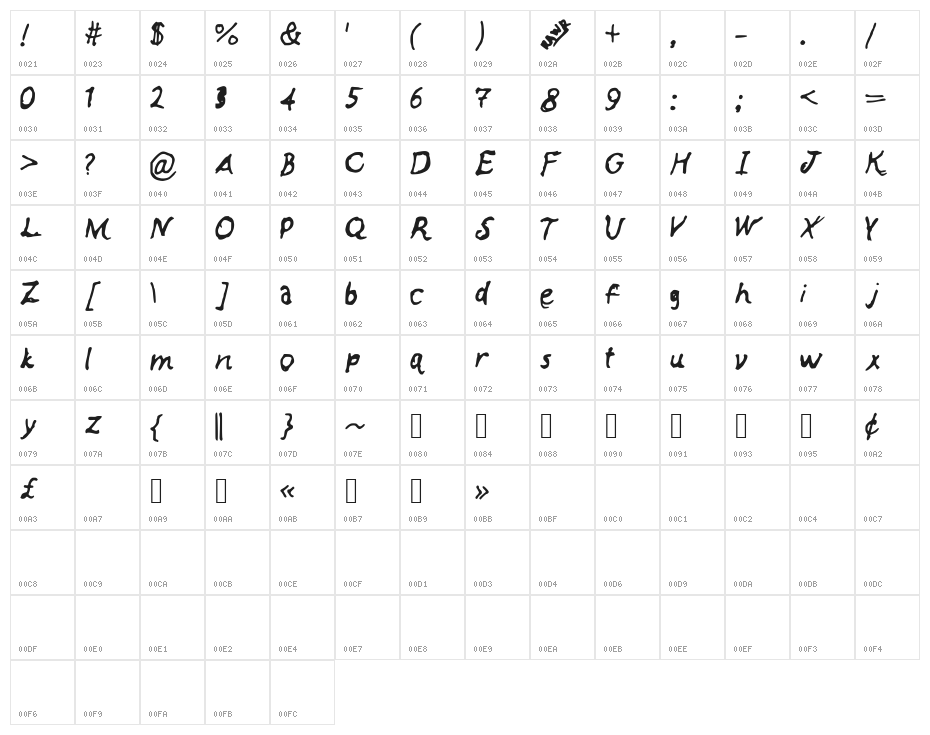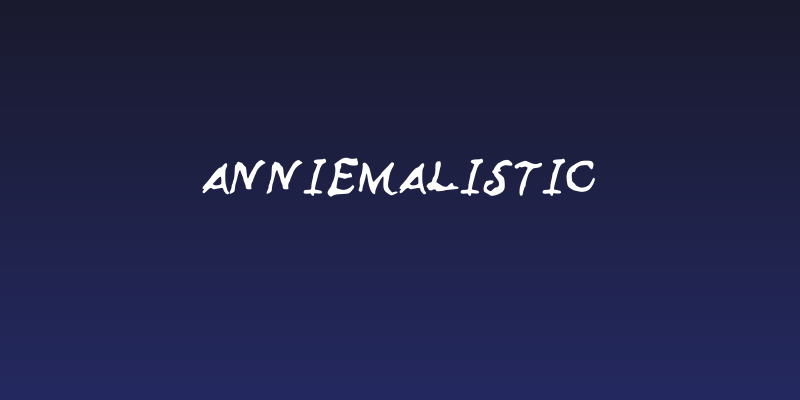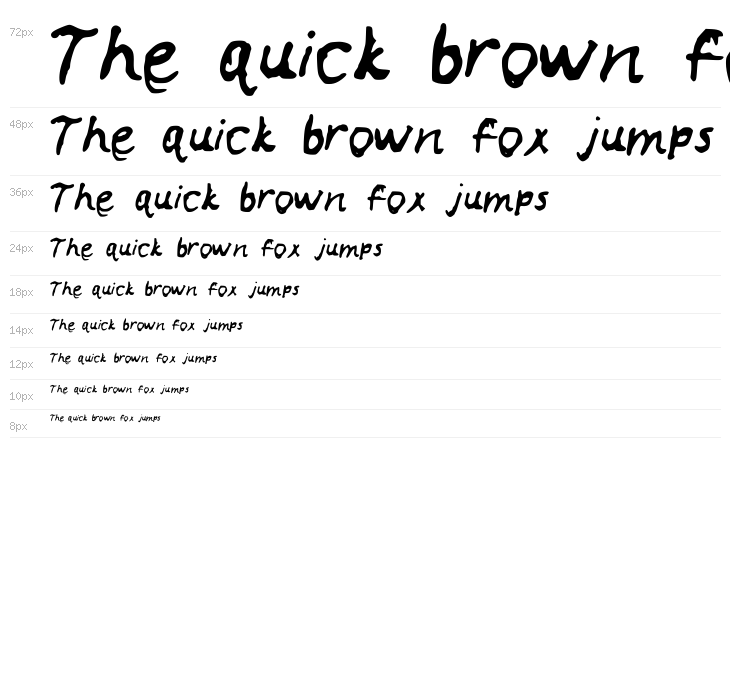
Anniemalistic Font
Anniemalistic Description
This font exhibits a playful and artistic handwritten style, characterized by its irregular and organic strokes. The letters are fluid and dynamic, giving a sense of movement and spontaneity. The uppercase and lowercase characters maintain a consistent style, with some letters featuring unique flourishes that add to the font's charm. The numbers and special characters are crafted with the same whimsical touch, ensuring a cohesive look across all glyphs. This font's informal and lively appearance makes it suitable for creative and casual applications.
ANNIEMALISTIC UPPERCASE
ANNIEMALISTIC LOWERCASE
ANNIEMALISTIC OTHER CHARS